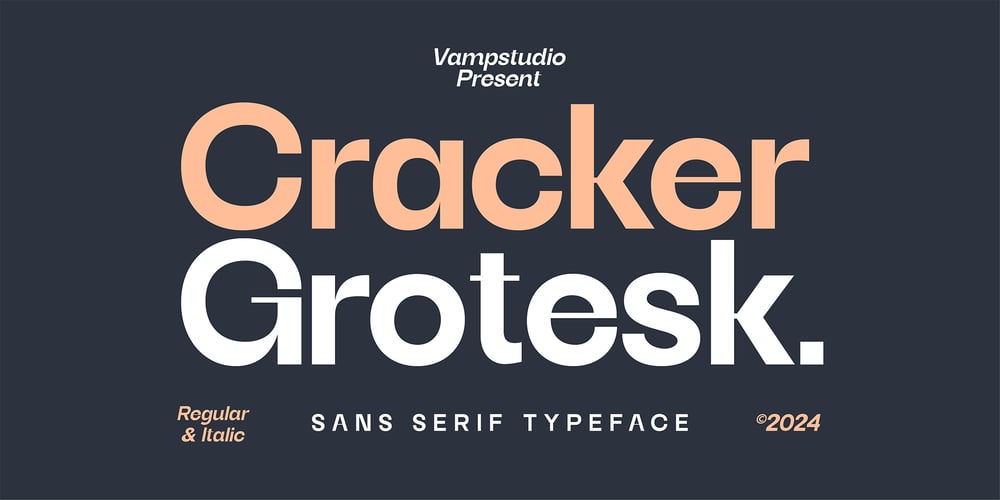
Cracker Grotesk Font Family was designed by Irfan syah and published by Vampstudio. Cracker Grotesk contains 2 styles and family package options. Cracker Grotesk Font: Inspired by modern sans-serif typefaces, this font brings a sleek and contemporary vibe to your designs. Perfect for creating clean, minimalist layouts with a touch of sophistication. Each character in Cracker Grotesk is meticulously crafted to blend modern aesthetics with timeless versatility. Elevate your projects with the clarity and style of this innovative sans-serif font